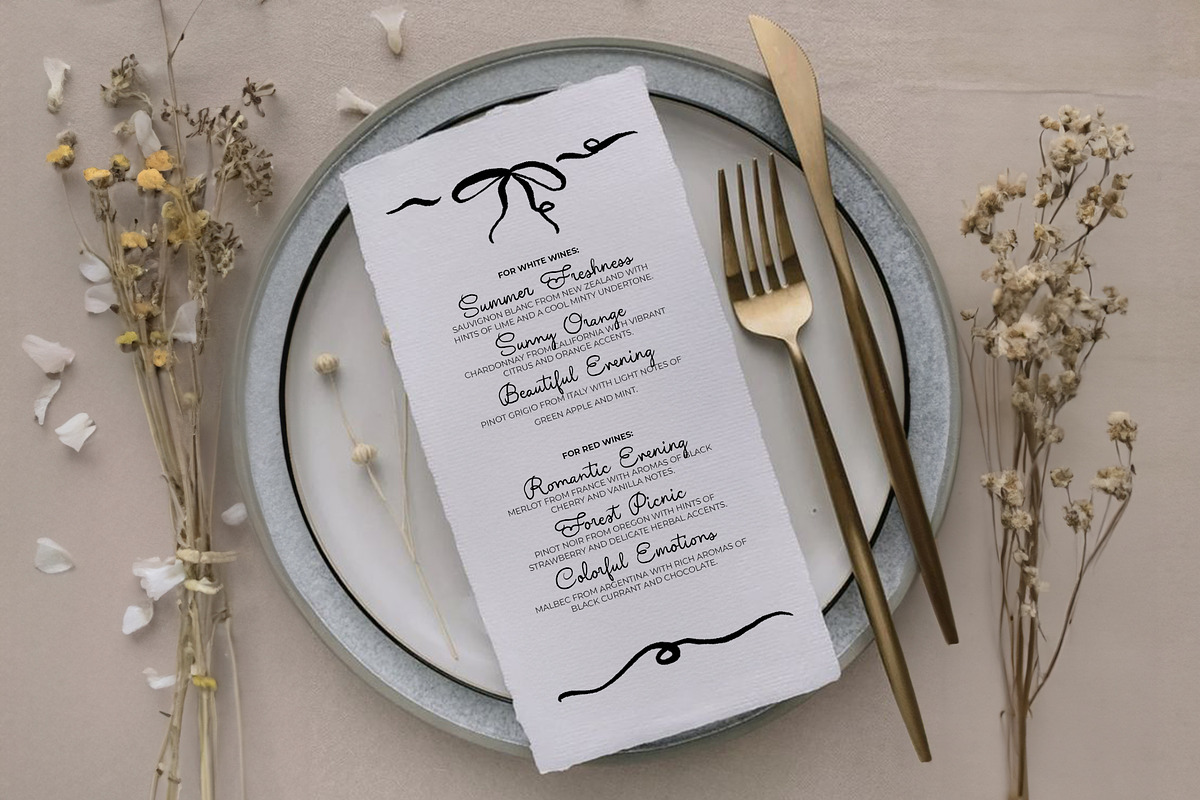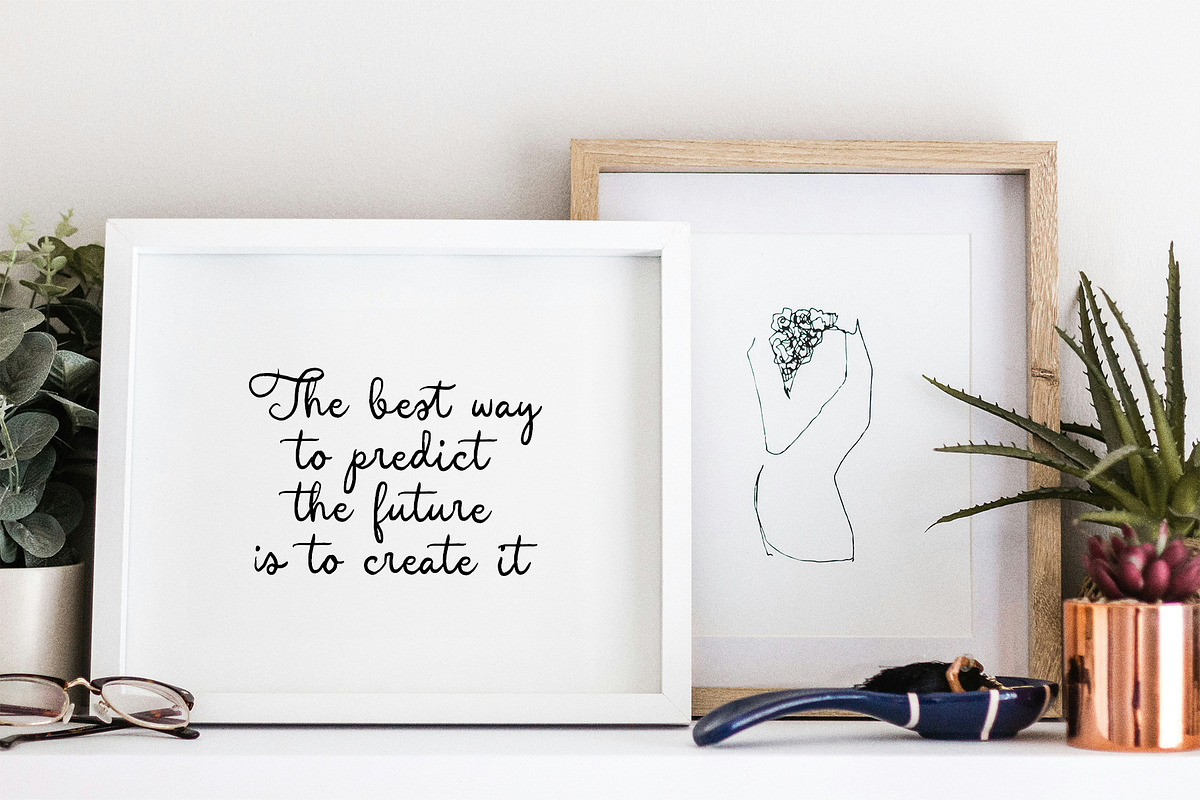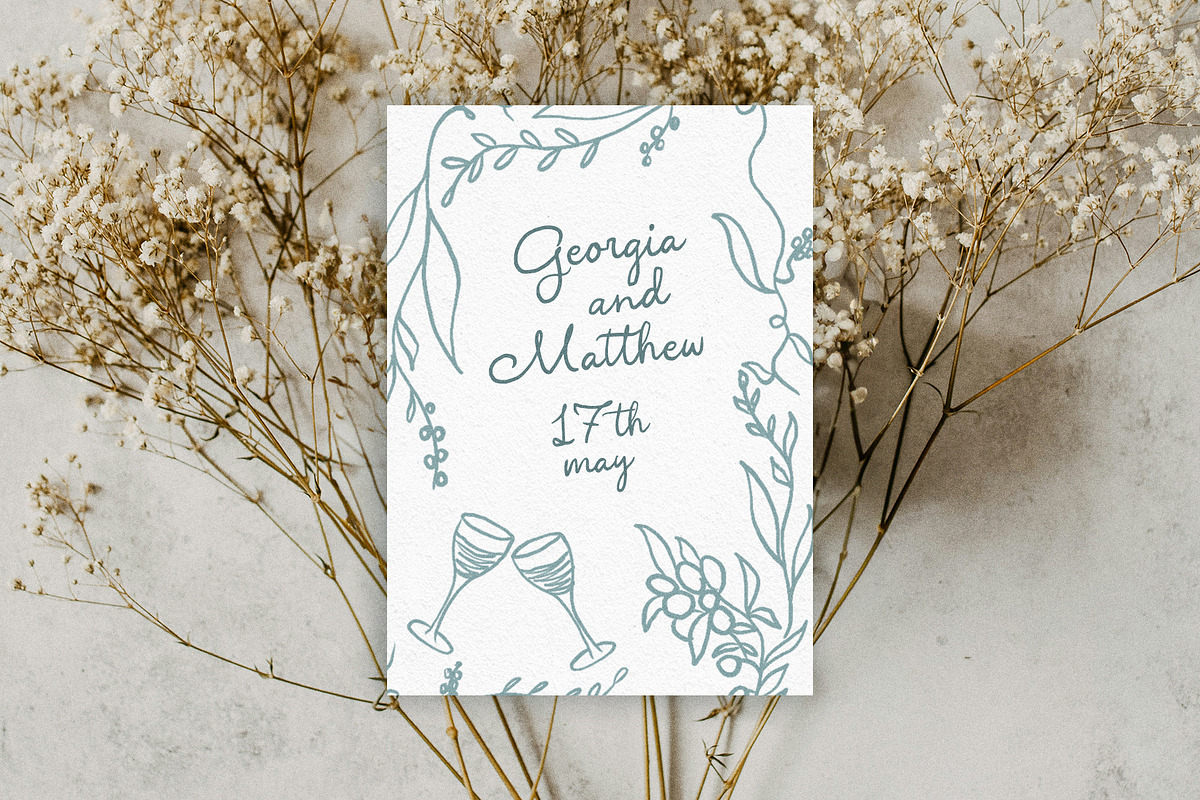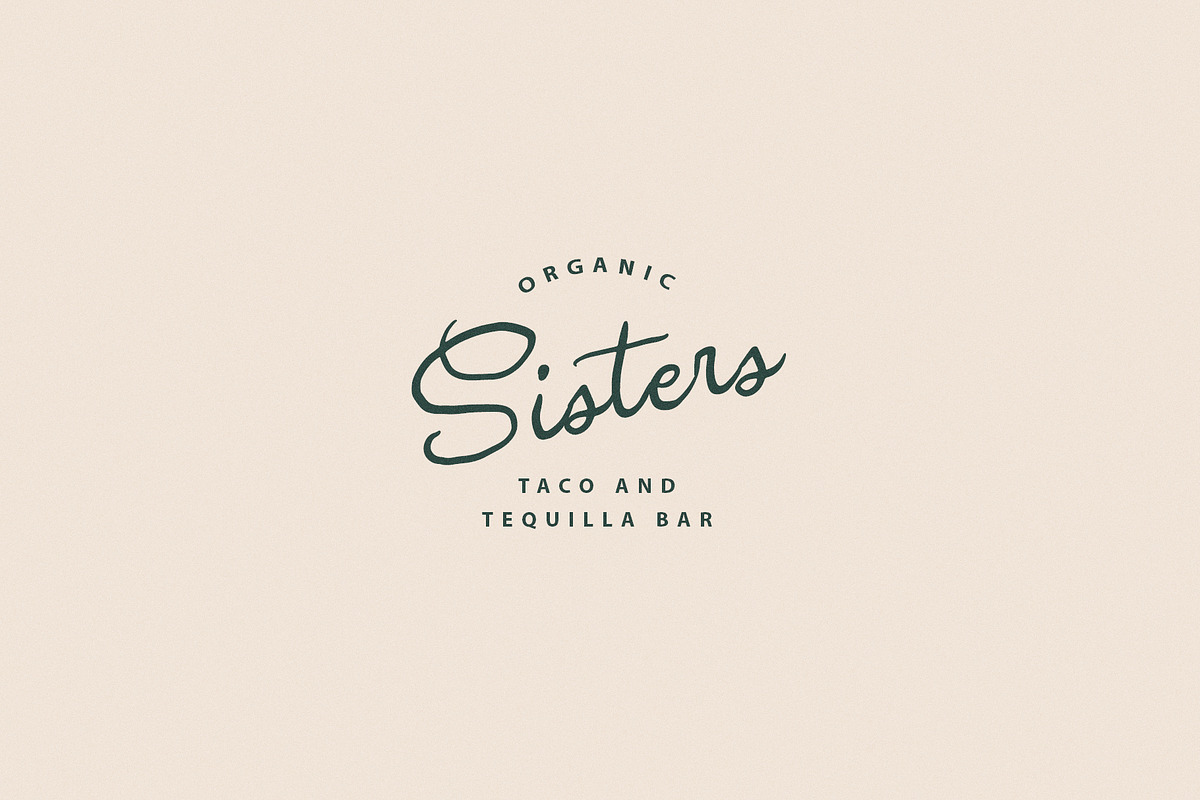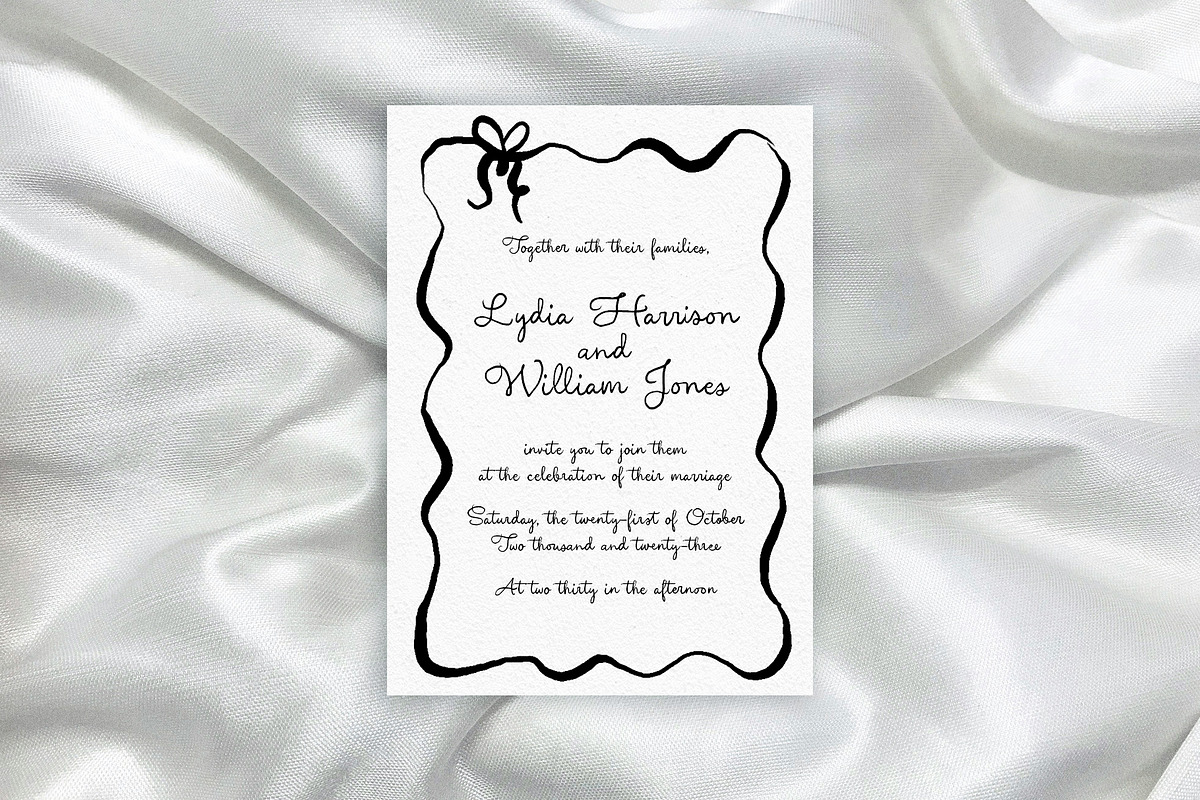
Pancake Mountains Font
Pancake Mountains is a casual handwritten font. Perfect for greeting cards, wedding stationery, photographer watermark logos, modern websites, apparel design and more.
• Full Set of standard alphabet and punctuation
• Handwritten ligatures
• Multilingual Characters